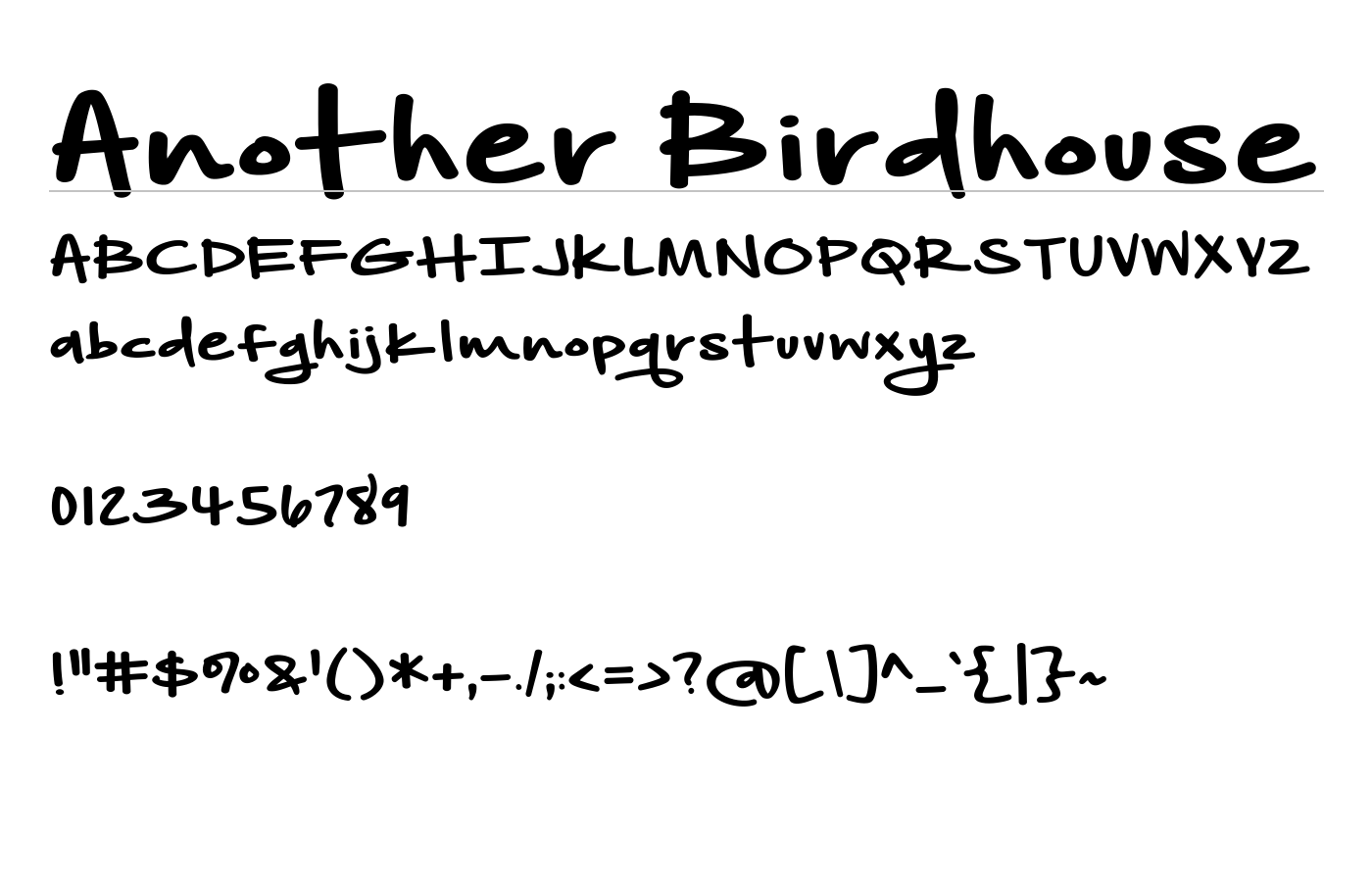
Another Birdhouse is a casual, handwritten sans serif font with a playful and approachable character. Its informal style features uneven strokes and slightly wobbly lines that mimic natural handwriting, making it ideal for projects seeking a friendly and personal touch. This font works well for invitations, social media graphics, children’s materials, and any design where a warm, creative, and relaxed vibe is desired.
Another Birdhouse Font
About Another Birdhouse Font
| Designer | Brittney Murphy |